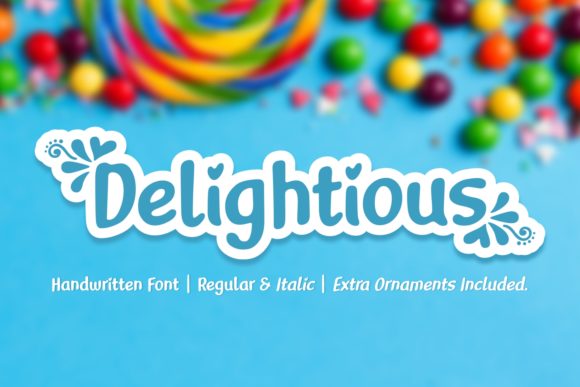
Introducing Delightious: A Script Font Symphony for Every Creative Vision
Embark on a typographic adventure with Delightious, a captivating script font brimming with charm and versatility. This enchanting font family, crafted by the talented Jasm of 7NTypes, transports your designs to a realm of creativity and visual delight.
Delightious is not just a font collection; it's a treasure trove of typographic elegance. Its expressive strokes dance across the page, evoking a sense of playfulness and whimsy. Each letterform is meticulously designed to create a harmonious symphony of curves, flourishes, and swashes.
As a script font, Delightious possesses an inherent versatility that makes it a perfect choice for a wide range of design projects. Envision your words taking shape as elegant wedding invitations, captivating headlines that leap off the page, or enchanting school crafts that spark imagination. The only limit is your boundless creativity.
To further enhance your typographic exploration, Delightious comes equipped with a wealth of OpenType features, including alternate glyphs and ligatures. These features provide you with the power to customize your text, creating truly unique and personalized designs.
One of the most captivating aspects of Delightious is its PUA encoding. This magical feature allows you to effortlessly access a world of glyphs and swashes, empowering you to add an extra touch of enchantment to your designs.
With Delightious, your design possibilities are endless. Whether you're crafting heartfelt greeting cards, designing eye-catching logos, or creating whimsical posters, this font will elevate your work to new heights of beauty and sophistication.
So, embark on a typographic journey like no other with Delightious, the script font that ignites your imagination and sets your creativity ablaze. Let your words dance with grace and enchantment, leaving an indelible mark on the hearts of your audience.